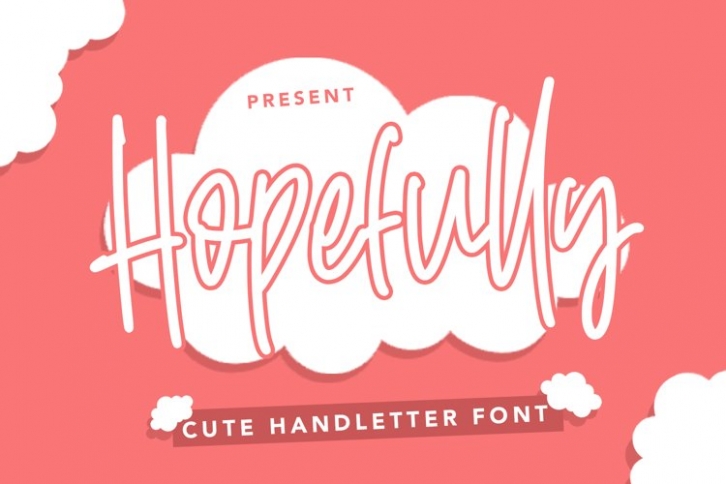
Hopefully is a beautiful font that was designed by plusstore. It's a great choice for designers and creatives who need such a font. It was released on June 12, 2021 and the file size is 8.24 MB. Hopefully may give a more youthful, expressive and casual look to your project. It is a very beautiful, refined, elegant, and high-quality font.